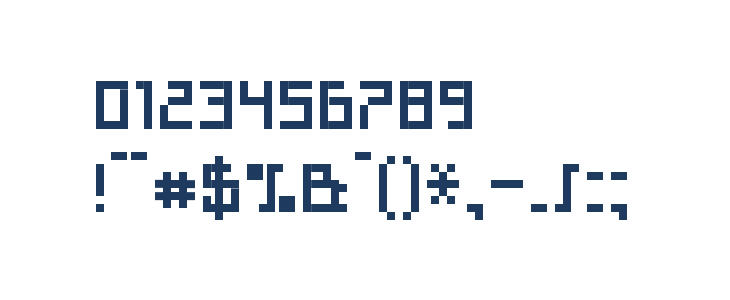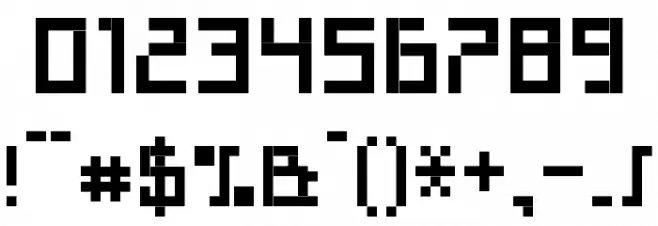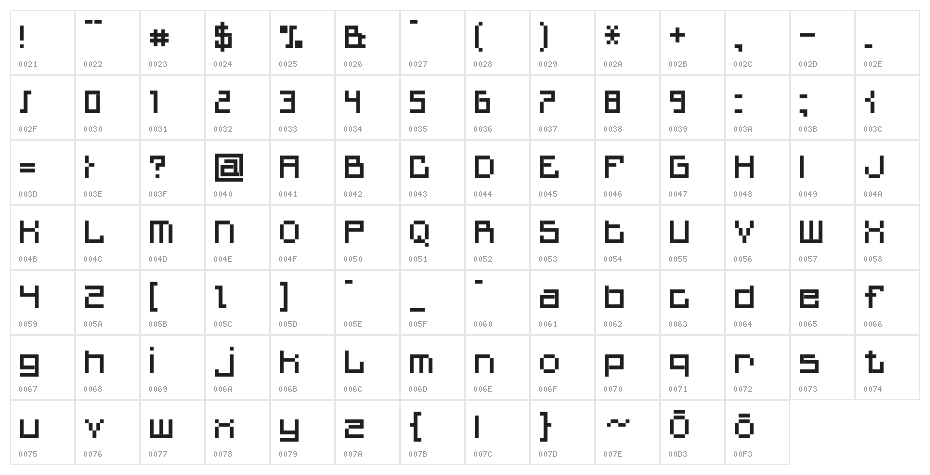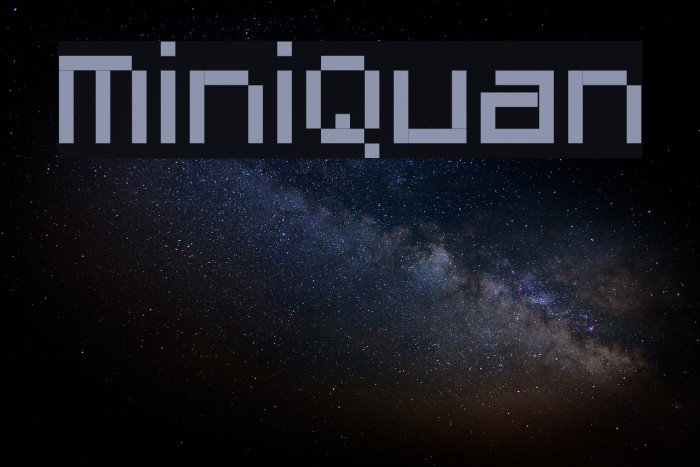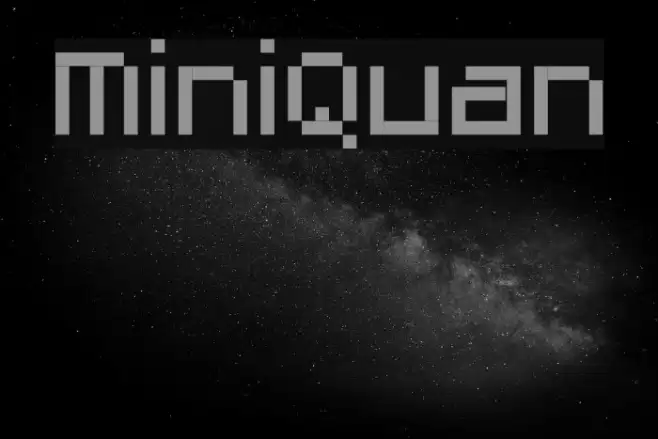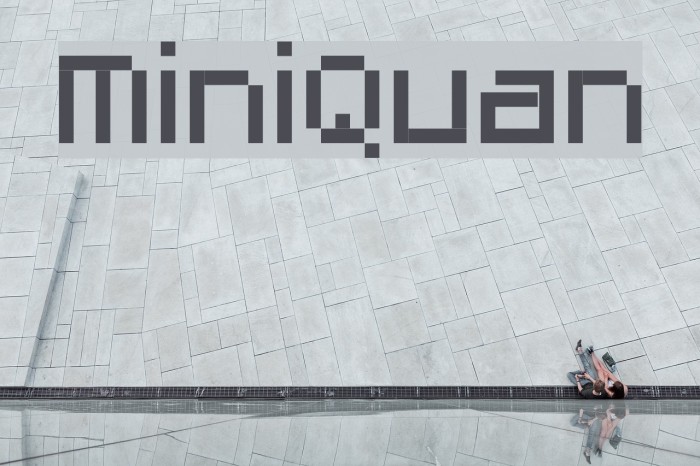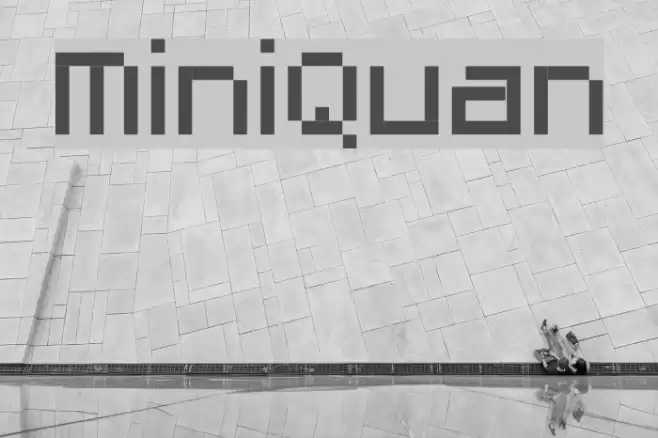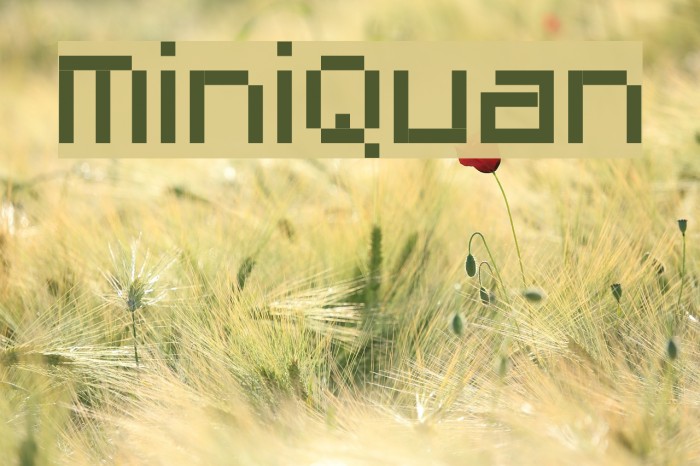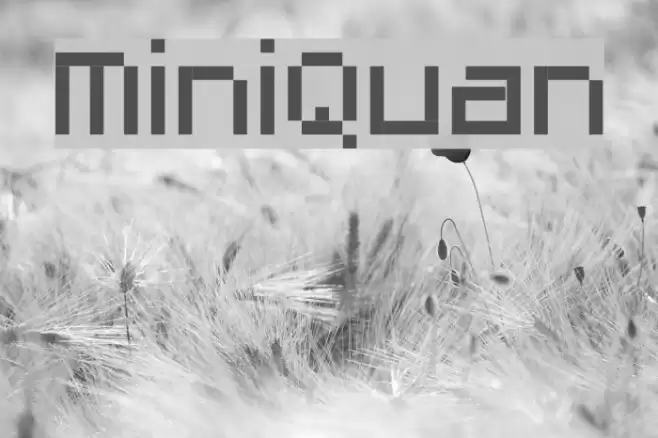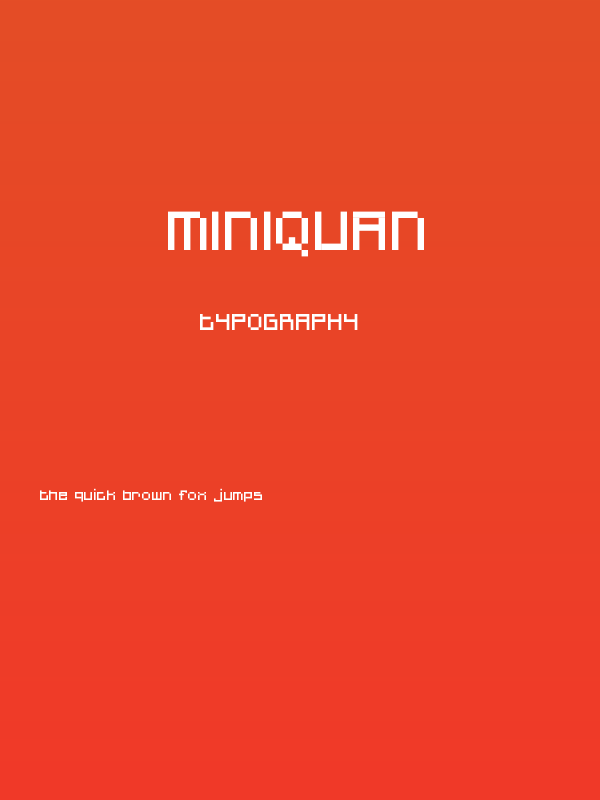
MiniQuan Font
MiniQuan Description
This font features a pixelated, blocky design reminiscent of early digital displays and video games. Each character is constructed with a grid-like precision, giving it a distinctly retro and technological feel. The uppercase and lowercase letters maintain a consistent height, while the numerals and special characters are designed to complement the overall aesthetic. The font's geometric structure is both bold and clear, making it suitable for digital interfaces and retro-themed projects. Its simplicity and uniformity ensure legibility even at smaller sizes, while the unique style adds a touch of nostalgia and modernity.
| Proposed Projects | Ideal for video game design, digital interfaces, retro-themed posters, and tech-related branding. |